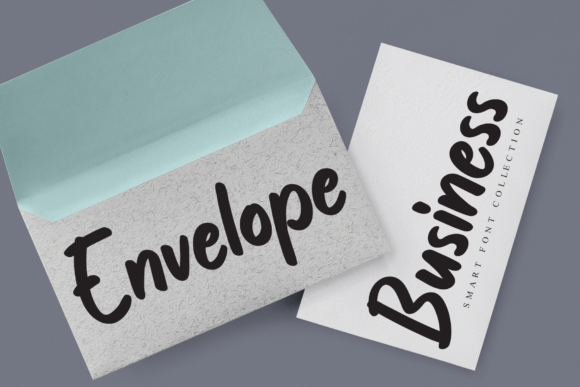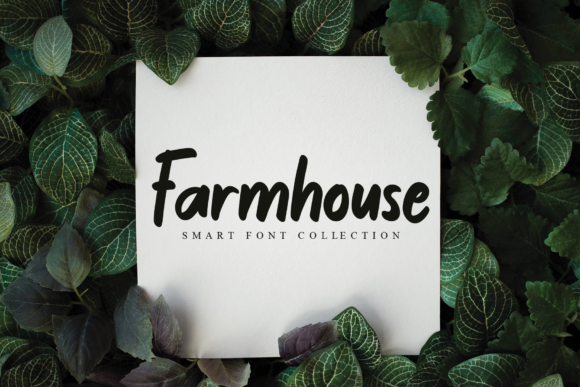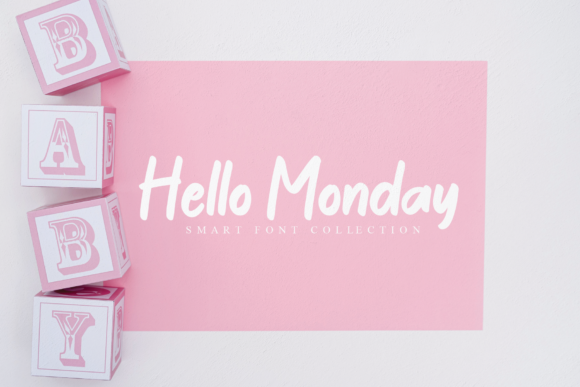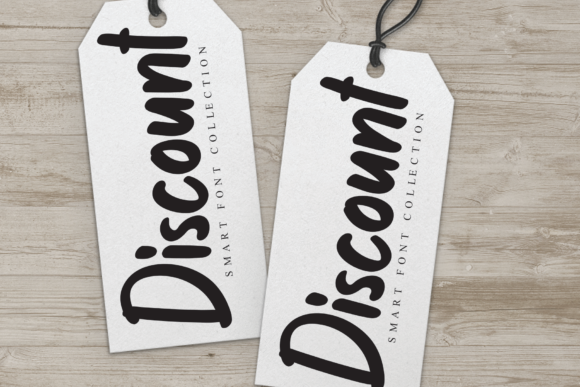
Lemonade Font
About Lemonade Font
Lemonade is a bold and classic handwritten font. Use this font for any crafting project that requires a personalized look!